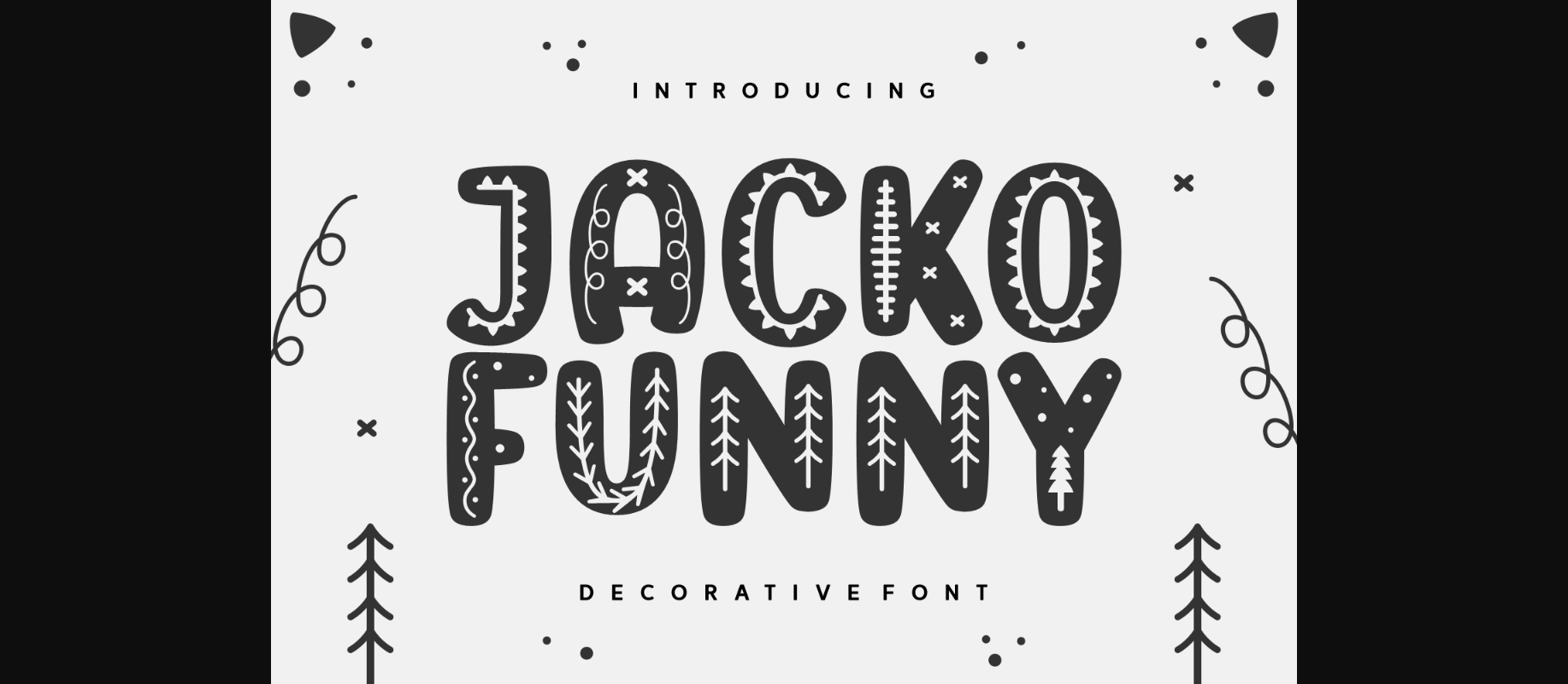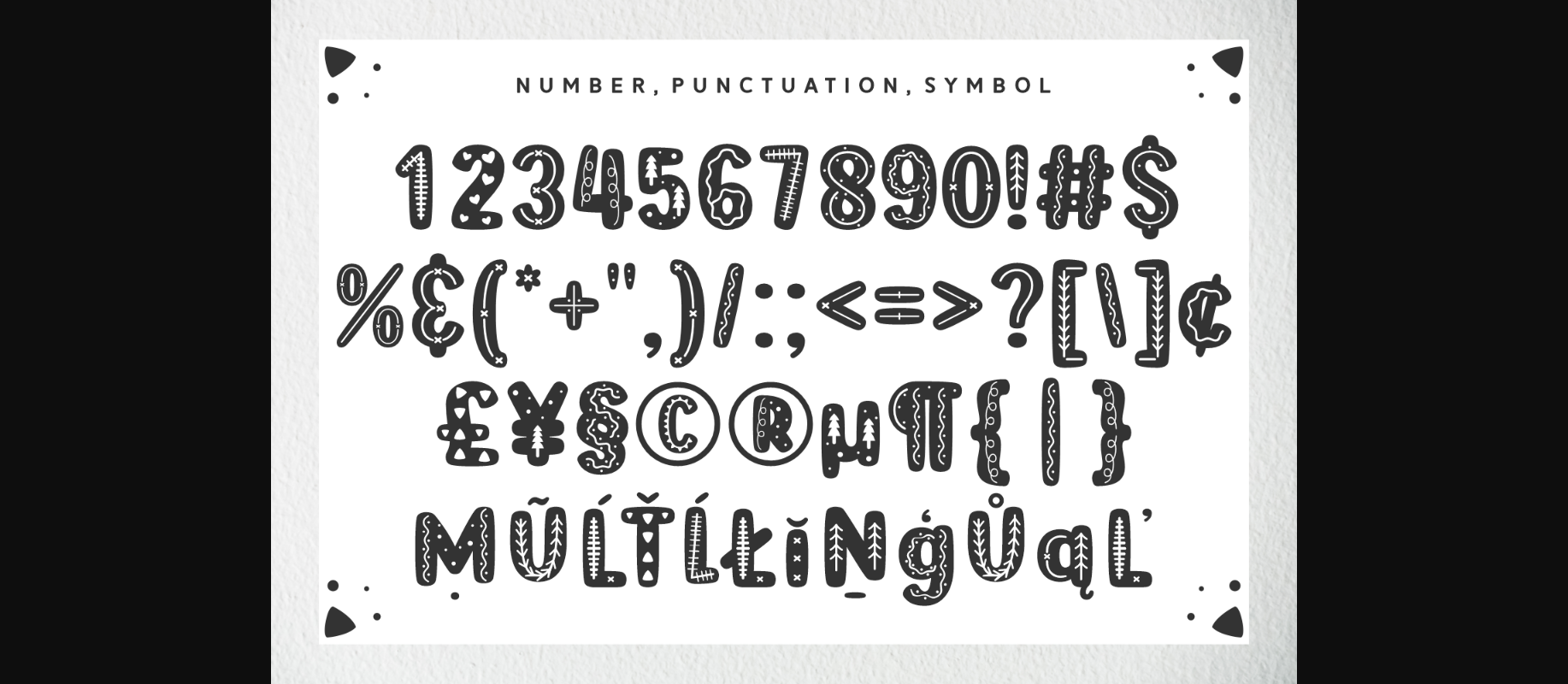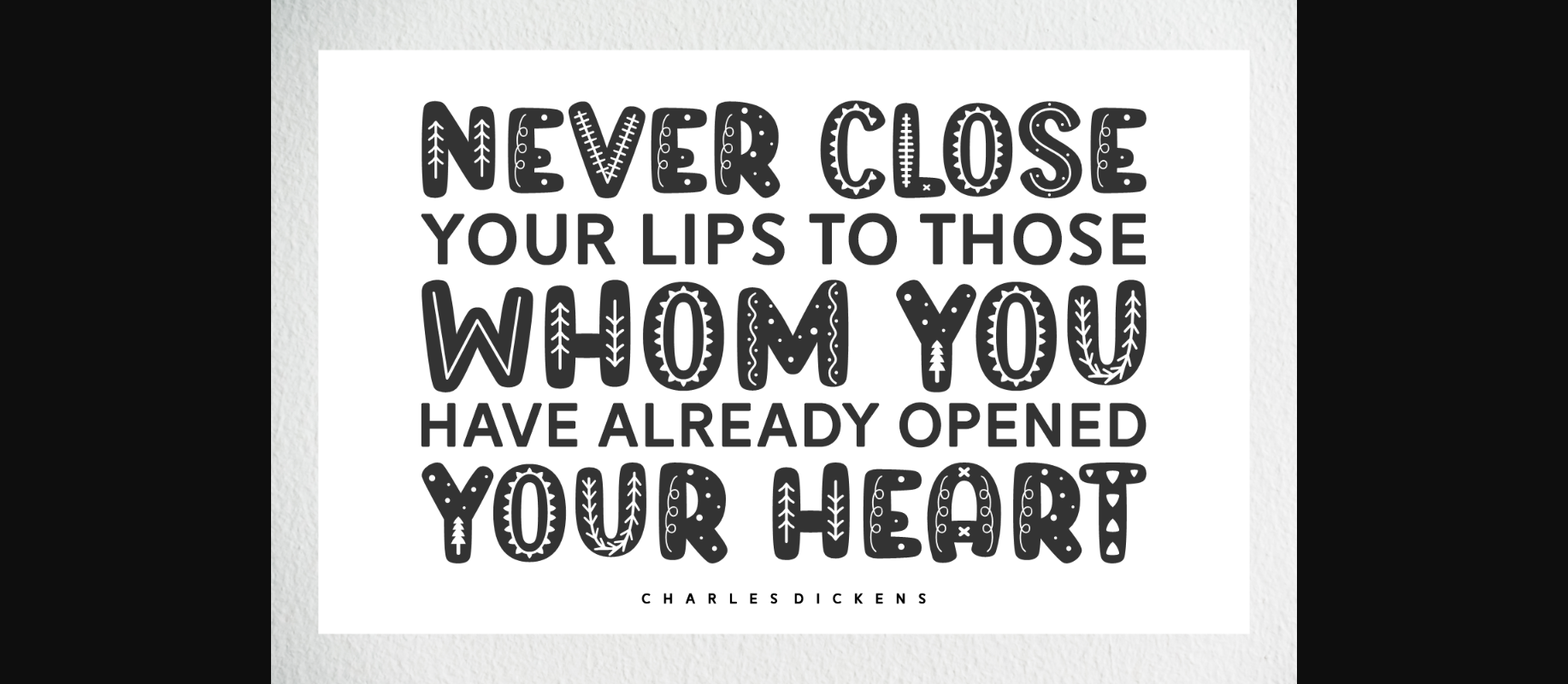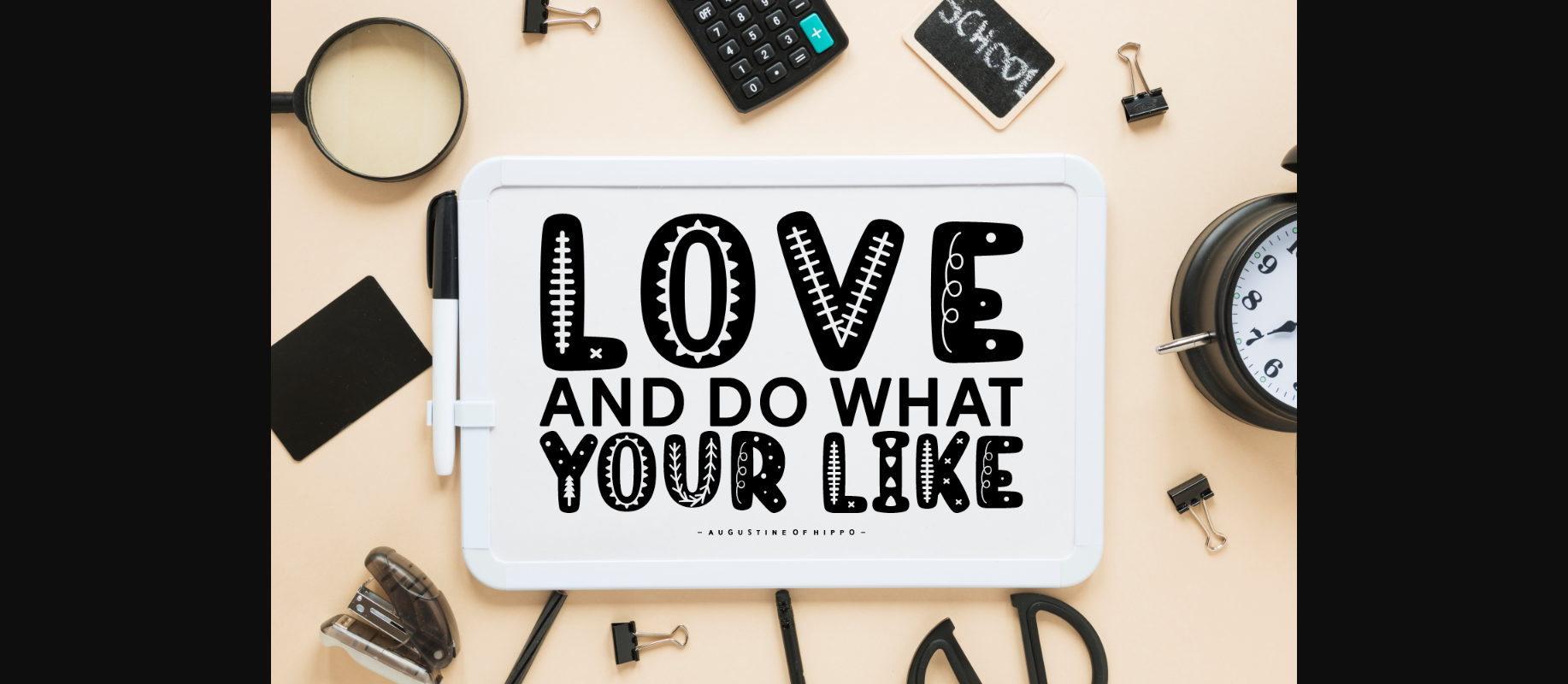
About Jacko Funny Font
Jacko Funny is a decorative font that features characters with intricate lines inside them, creating a unique and eye-catching look. Perfect for adding an extra touch of style and personality to any design.